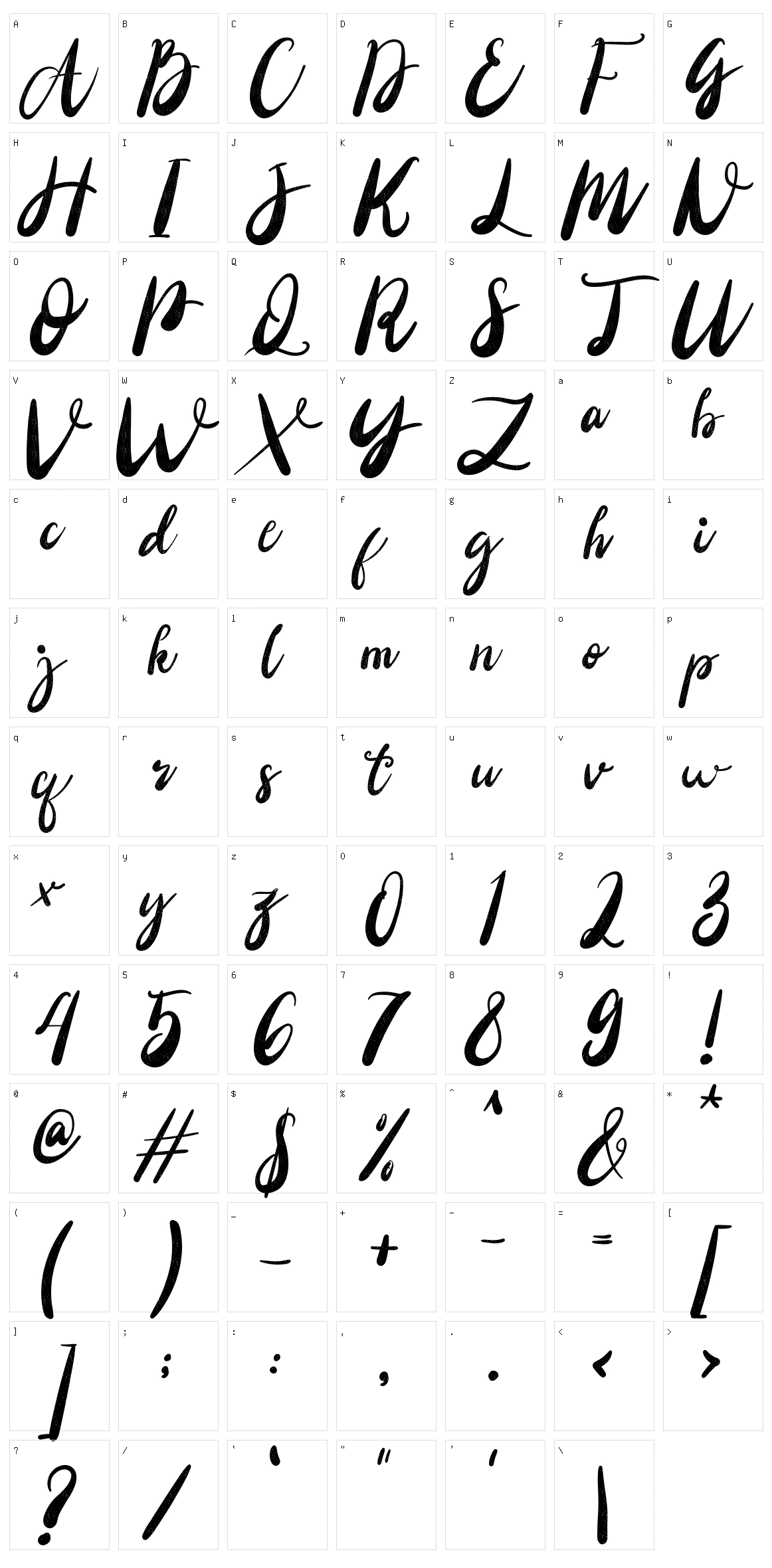
The free font Christony is carefully designed by Jadatype, showcasing a thoughtful balance of creativity and usability and falls under the Script font style. When you download the ZIP file, it contains only 301.13 KB of font files, making it lightweight and quick to download. Please review the license details below to understand permitted usage and distribution rights. If license information is not available, we recommend using this font for personal projects only or contacting the author directly for commercial usage permissions.